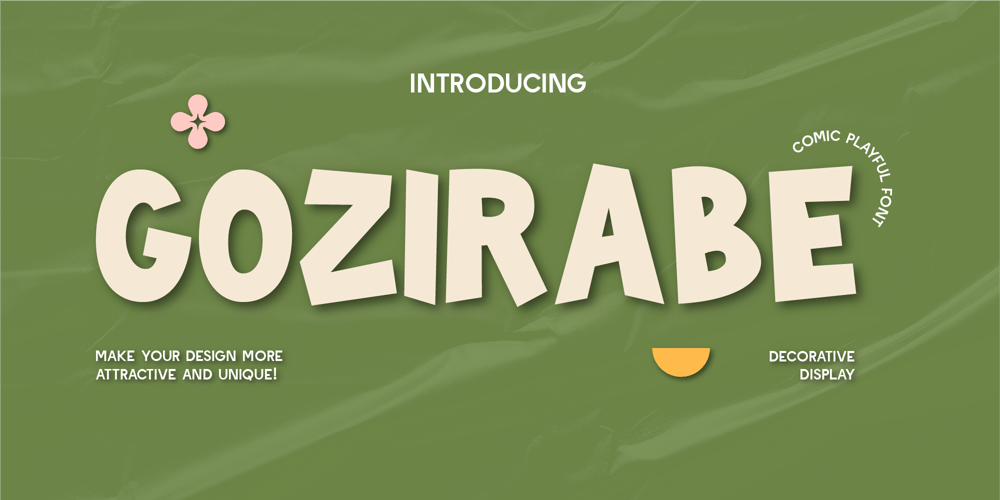
Gozirabe
Gozirabe font
Gozirabe Font Family was designed by Dede Kurniawan and published by Creatifont Studio. Gozirabe contains 1 styles and family package options. Gozirabe is a vibrant decorative cartoon typeface designed to bring joy and quirky vibes to any project. With sharp edges and an irregular baseline, it captures a playful energy, making it ideal for projects that aim to be lighthearted and fun. The unique balance between its sharp forms and carefree structure gives Gozirabe a dynamic appearance, perfect for children’s books, comics, or playful branding.A SUMMARY OF WHAT’S INCLUDED: Standard Character A-Z, a-z, 0-9, Punctuation & symbols Regular Quirky Style Multilingual Support Works on PC & Mac Simple installation Accessible in Adobe Creative Suite (Ai, Ps, Id, etc.) even work on Microsoft Word. PUA Encoded Characters – Fully accessible without additional design software. 🌟If you come across any issues or notice anything we might have overlooked while using this product, please feel free to reach out to us. We greatly value your feedback as it helps us enhance and refine our products. Thank you!